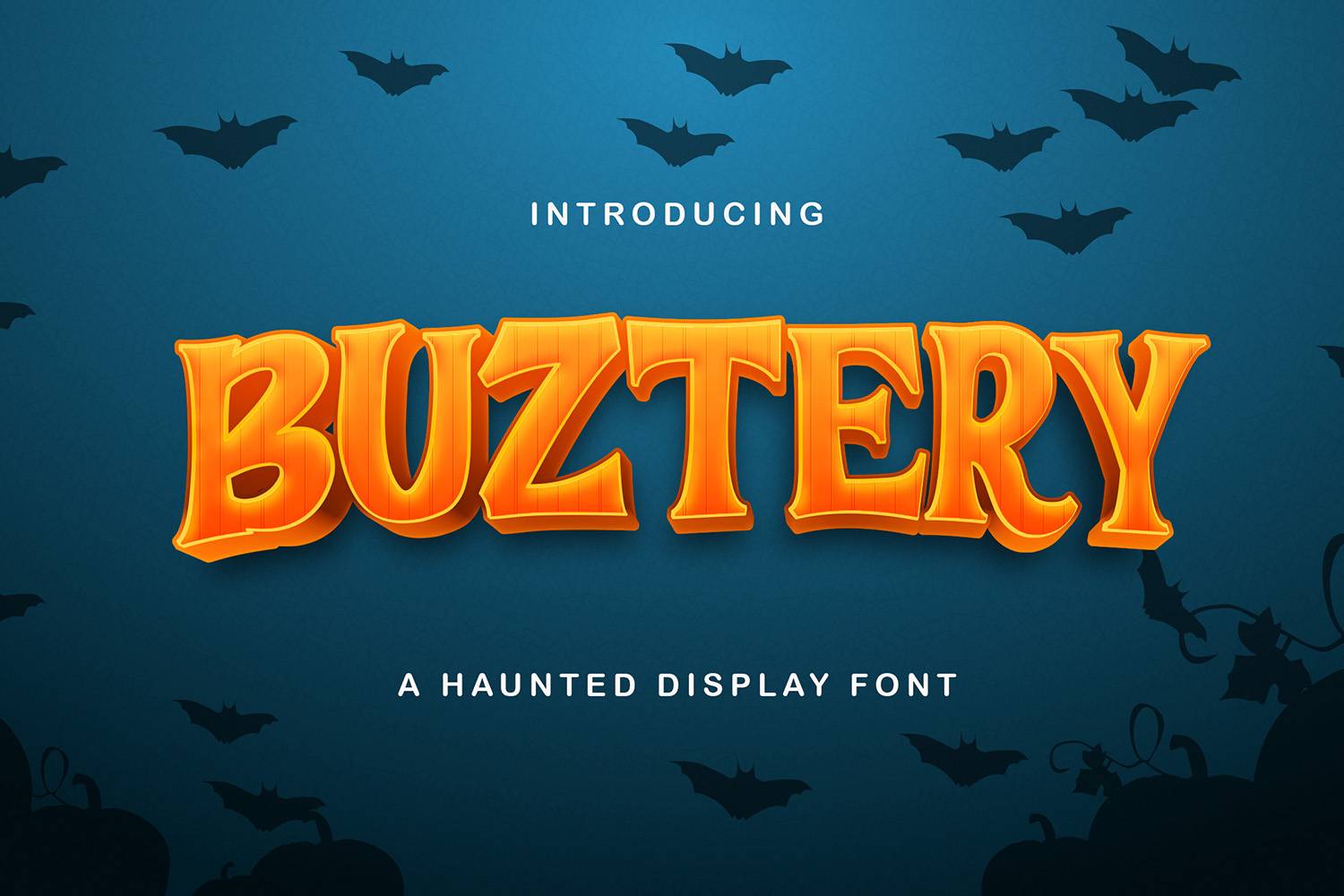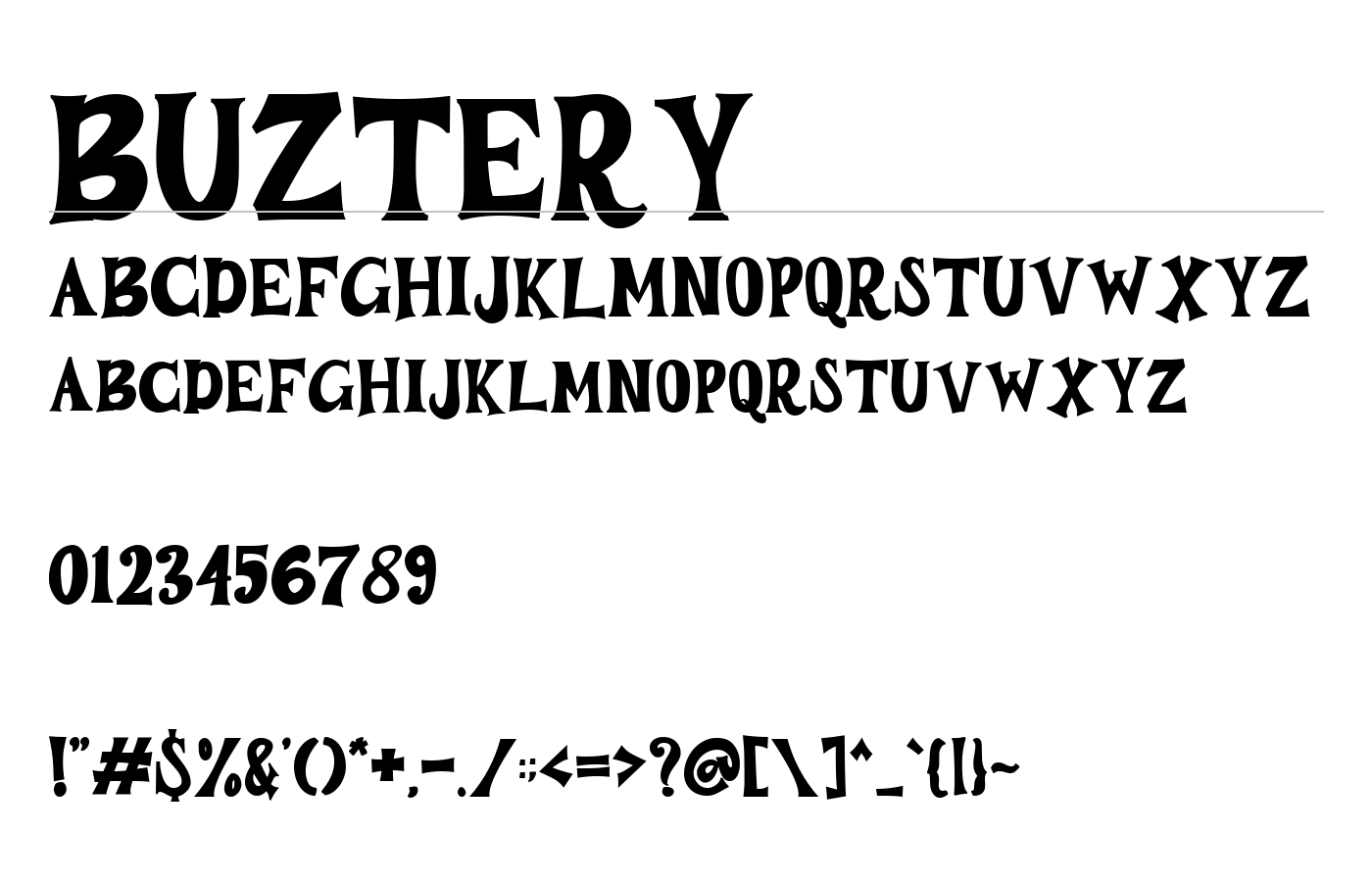
Buztery is a bold, playful serif font with a quirky and slightly whimsical character, featuring irregular stroke shapes and subtle contrasts that lend a hand-drawn, artistic vibe. Its strong presence and unique letterforms make it ideal for creative branding, headlines, or packaging where a fun yet readable style is needed. This font works best in contexts seeking to convey personality and originality without compromising clarity.
Buztery Font
About Buztery Font